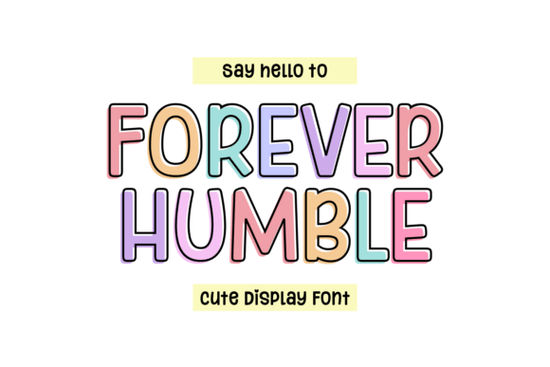
If you're looking for a display font that feels warm, kind, and quietly confident without being cutesy or overly delicate Forever Humble Font fits that space beautifully. It’s not loud or flashy, but it carries presence: soft rounded letterforms, even spacing, and an airy rhythm that makes text feel easy to read and emotionally inviting. Designers and small business owners often tell us they reach for it when they want their messaging to reflect sincerity whether that’s a heartfelt quote on Instagram, a gentle logo for a wellness brand, or a cheerful tagline on kids’ apparel.
When does Forever Humble work best?
This font shines in contexts where tone matters as much as legibility. Its friendly weight and open structure give it strong readability at larger sizes, especially in digital and print formats with limited color contrast. Think: social media headers that don’t shout but still hold attention, greeting cards with handwritten warmth (but cleaner execution), or minimalist product labels for organic skincare or slow-living brands.
It’s also a thoughtful alternative to bolder, more aggressive display fonts especially if your audience leans toward calm, mindful, or family-oriented values. Unlike many rounded sans-serifs that tip into playful or juvenile territory, Forever Humble keeps its balance: modern enough for contemporary branding, sweet enough for heartfelt moments.
How does it compare to other popular display fonts?
Compared to something like Jersey Distressed Font, which brings raw texture and vintage energy, Forever Humble is intentionally smooth and uncluttered. That makes it better suited for clean layouts, pastel palettes, or designs where visual breathing room supports the message not competes with it.
It’s also quite different from Cowboy Western Font, which leans into bold personality and rustic charm. Forever Humble doesn’t aim for character through exaggeration it builds character through consistency, proportion, and quiet confidence. You’ll find it more at home beside Leah Font (another soft, humanist option) than next to high-contrast serifs or grunge-inspired typefaces.
For romantic or elegant projects, Romantic Aura Duo Font offers script-and-sans pairings with more flourish and contrast. Forever Humble stands apart by staying entirely sans-serif and doing so with warmth instead of austerity. That makes it especially useful for brands that want to feel inclusive, grounded, and approachable without leaning on traditional “feminine” or “decorative” cues.
Practical tips for using it well
- Pair it thoughtfully: Because it’s light and airy, it pairs best with a slightly more structured sans-serif (like Montserrat or Inter) for body text not another delicate display font.
- Watch line height and letter spacing: Its open structure benefits from generous line spacing (1.4–1.6) and slight tracking (+10–+20) in headlines to preserve its breathy, unhurried feel.
- Avoid overusing all-caps: While it works in uppercase, the lowercase forms carry more of its gentle personality so lean into mixed case for quotes or short phrases.
- Test contrast early: Its light weight means it can fade on busy backgrounds. Always preview on your intended background color or image before finalizing.
Who’s already using fonts like this?
We’ve seen independent makers use Forever Humble for printable affirmation cards sold on Etsy, small-batch candle labels, and even embroidery digitizing projects where simplified letterforms translate cleanly to stitch. Print-on-demand sellers report higher engagement on designs featuring positive affirmations especially when paired with soft illustrations or neutral photography. It’s also become a quiet favorite among therapists, yoga instructors, and educators building calming classroom resources or wellness worksheets.
If you’re curious about how it stacks up against other modern display fonts, you might also explore Forever Humble, Leah, or Romantic Aura Duo to see how subtle shifts in weight, curve, and contrast affect mood and usability.